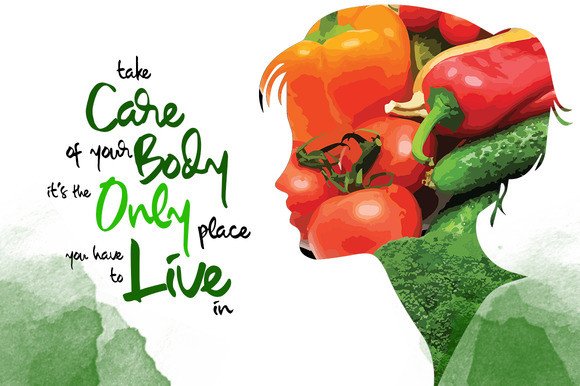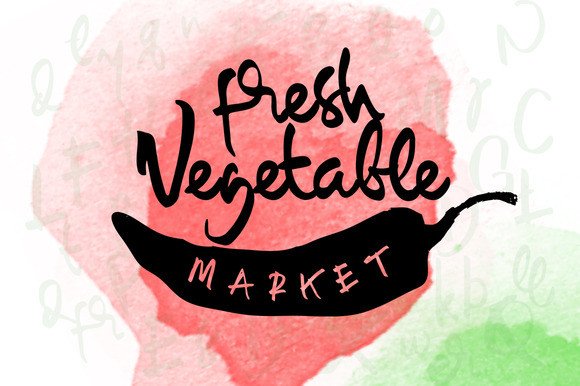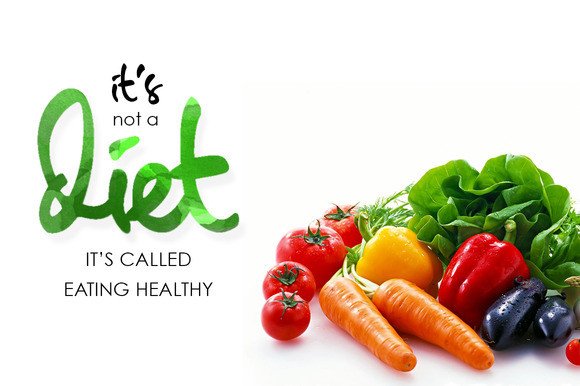
Introduction to Sambay Font
Have you ever been working on a creative project, pouring your heart and soul into it, only to feel like it’s missing that special something? You know, that touch of personality that sets it apart from the rest? For many designers, that special something is often found in the perfect font. And that’s exactly where Sambay Font comes in – a stunning brush stroke font that’s sure to give your designs a handcrafted and relaxed feel.
Not only is Sambay Font incredibly legible, but it’s also a remarkable display font that’s perfect for adding some charm to your designs. Whether you’re working on a branding project, a website, or just a fun little side hustle, Sambay Font is a valuable resource that’s sure to elevate your work to the next level.
Key Features of Sambay Font
- Comes in a single weight, making it perfect for projects where a simple, elegant font is desired.
- Designed with a focus on legibility and aesthetic appeal, making it suitable for both digital and print media.
Honest Review: Sambay Font
I recently had the chance to work with the Sambay Font, and I must say it’s been a great addition to my design resource collection. As a designer, I’m always on the lookout for high-quality fonts that can elevate my creative project to the next level.
- ✨ High-quality design: The Sambay Font is beautifully crafted, with intricate details that make it perfect for a variety of design applications.
While the Sambay Font is an excellent resource, there are a few limitations to consider: ⚠️ The font is only available in a single weight, which may limit its use in certain design contexts.
Common Use Cases for Sambay Font
Sambay Font is ideal for a variety of design projects, including:
– Brochures and flyers
– Infographics and data visualizations
– Branding and marketing materials
Montserrat compares to Sambay Font in its sleek and modern design, but it has a more geometric feel. While Sambay Font has a more playful and artistic vibe, Montserrat is more versatile and can be used in a wide range of creative projects.